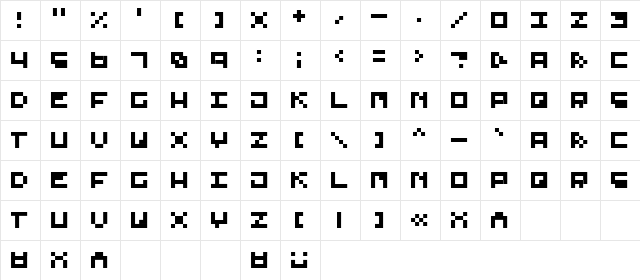
Pixel 4x4 Regular
Design Context for Pixel 4x4 Typeface
Pixel 4x4 is rooted in pixel-grid construction, making it a natural fit for game UI, retro computing aesthetics, and digital nostalgia projects.
Well-suited to indie game interfaces, retro computing aesthetics, and pixel art-adjacent design work.
Pro Tip: Use Pixel 4x4 at sizes that align with its pixel grid for the sharpest rendering — scaling to non-integer multiples can introduce unwanted blur.